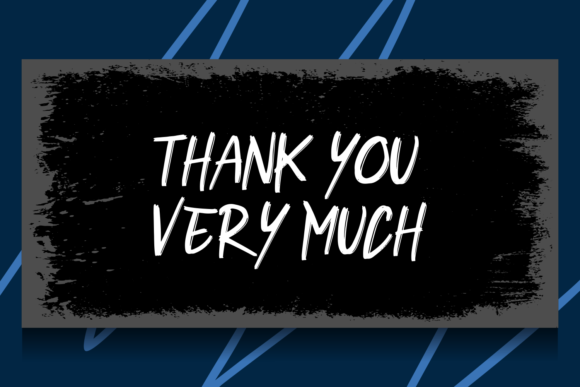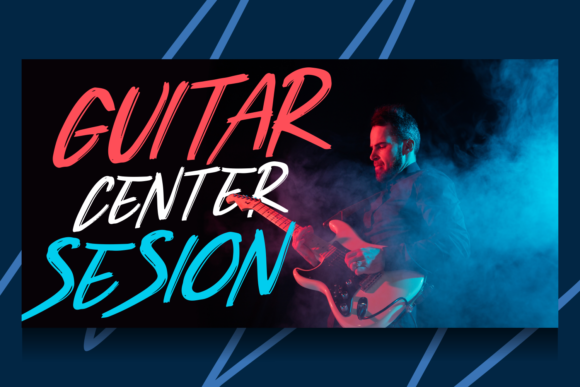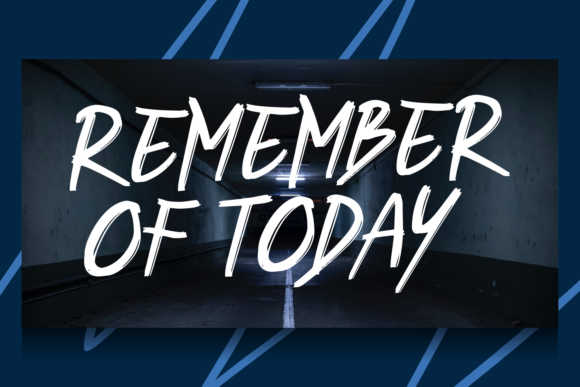
Introduction to Morepling Font
Have you ever stared at a blank canvas, your mind racing with ideas but your fingers hesitant to create? This is the moment when a perfect design resource can make all the difference. For designers, finding the right font can be a game-changer, especially when working on a creative project that requires a unique touch. This is where the Morepling Font comes in – a cool, relaxed, and trendy handwritten font that can elevate your designs to the next level.
Whether you’re designing t-shirts, sportswear, logos, advertisements, or clothing, the Morepling Font is an excellent choice. Its high-quality design and transparent background make it a valuable asset for any design project. And the best part? It’s available for free download, making it an accessible design resource for designers of all levels.
Key Features of Morepling Font
- High-quality design: Morepling Font is designed to provide a unique and elegant touch to your creative project.
- Transparent background: This font features a transparent background, making it perfect for use on any design resource.
- Resolution: The font is designed at 300 DPI, making it suitable for high-quality prints and digital designs.
- Unique characteristics: Morepling Font features a unique blend of modern and vintage elements, making it perfect for designers looking for something new and exciting.
- Size: The font includes multiple weights, ranging from Thin to Bold, allowing designers to choose the perfect size for their creative project.
Honest Review: Morepling Font
I recently had the chance to work with the Morepling Font, and I must say it’s been a great addition to my design resources. I love how versatile it is, making it perfect for a wide range of creative projects.
- ✨ High-quality design: The Morepling Font is crisp and clean, making it ideal for any high-end design project.
- ✨ Transparent background: This feature is super useful for designers who need to overlay text on images or videos.
- ⚠️ Limited font styles: While the font is high-quality, it’s limited to a few styles, which might not be suitable for designers who need a wide range of options.
- ⚠️ Not suitable for small text: Due to its clean design, the Morepling Font might not be the best choice for small text or intricate designs.
Overall, I’m impressed with the Morepling Font, and I would definitely recommend it to designers who need a high-quality, versatile font for their creative projects.
Tips for Getting the Most Out of Morepling Font
For a high-quality design, use the Morepling Font on a transparent background to give your design a clean and modern look. Experiment with different font sizes and styles to create visual interest.
The Morepling Font is ideal for creative projects that require a unique and eye-catching font. Use it for logos, branding materials, social media graphics, and more.